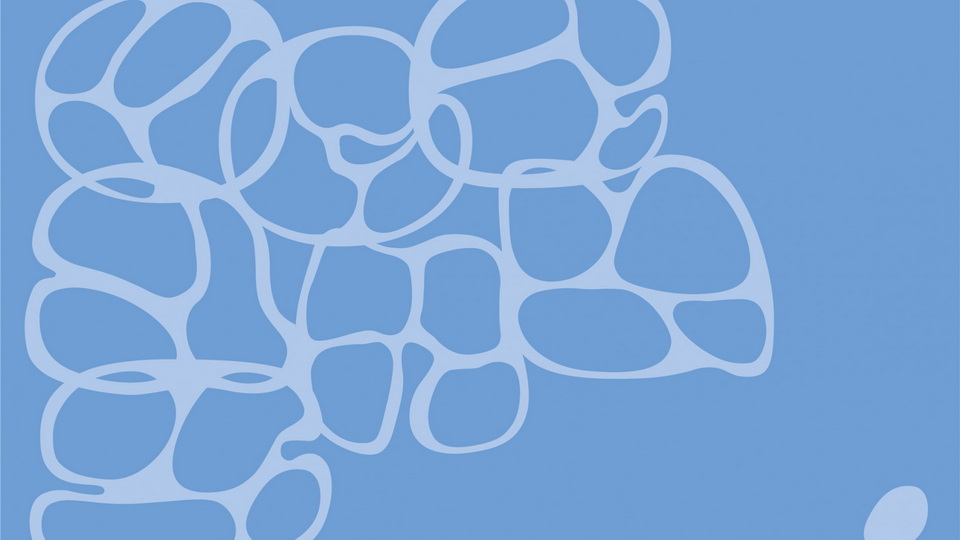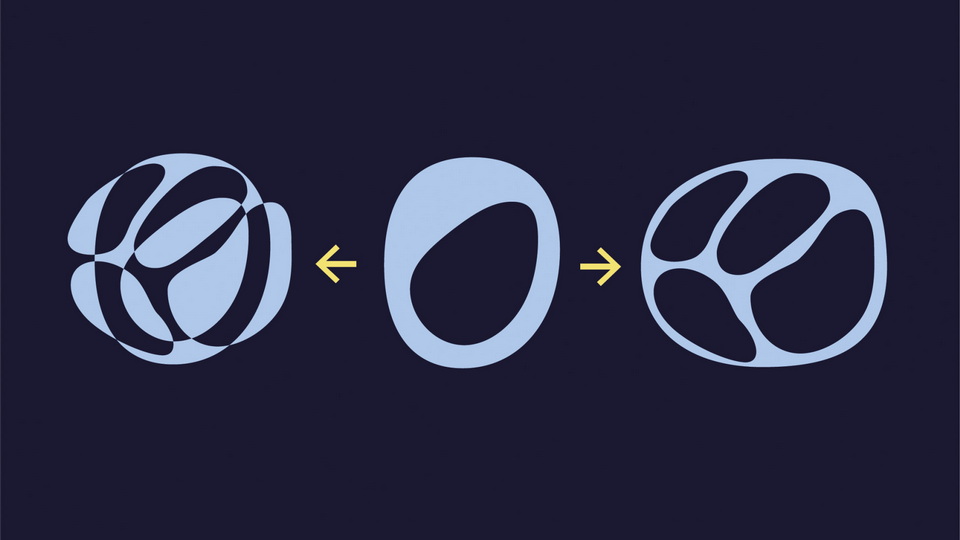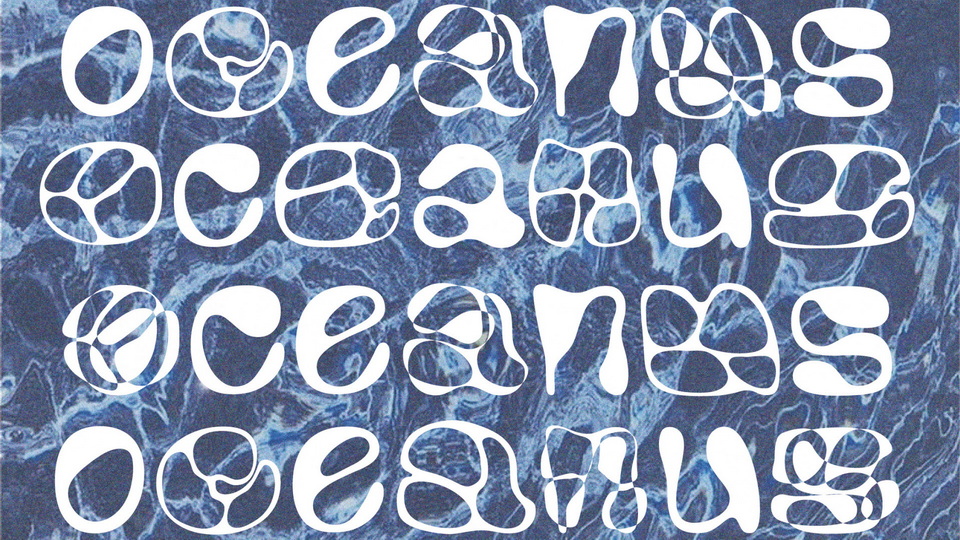
Oceanus Font
Oceanus is a display typeface inspired by Stanislaw Lem’s novel Solaris. The novel is about the ultimate futility of attempted communications with the extraterrestrial life inhabiting a distant alien planet named Solaris. The planet is almost completely covered with an ocean of gel that is revealed to be a single, planet-encompassing entity. This font is an attempt to find common language between Ocean and Human, about their communication, illusion, fight with the fear and incomprehensible logic of water.
Designed by: Eugenia Tynna